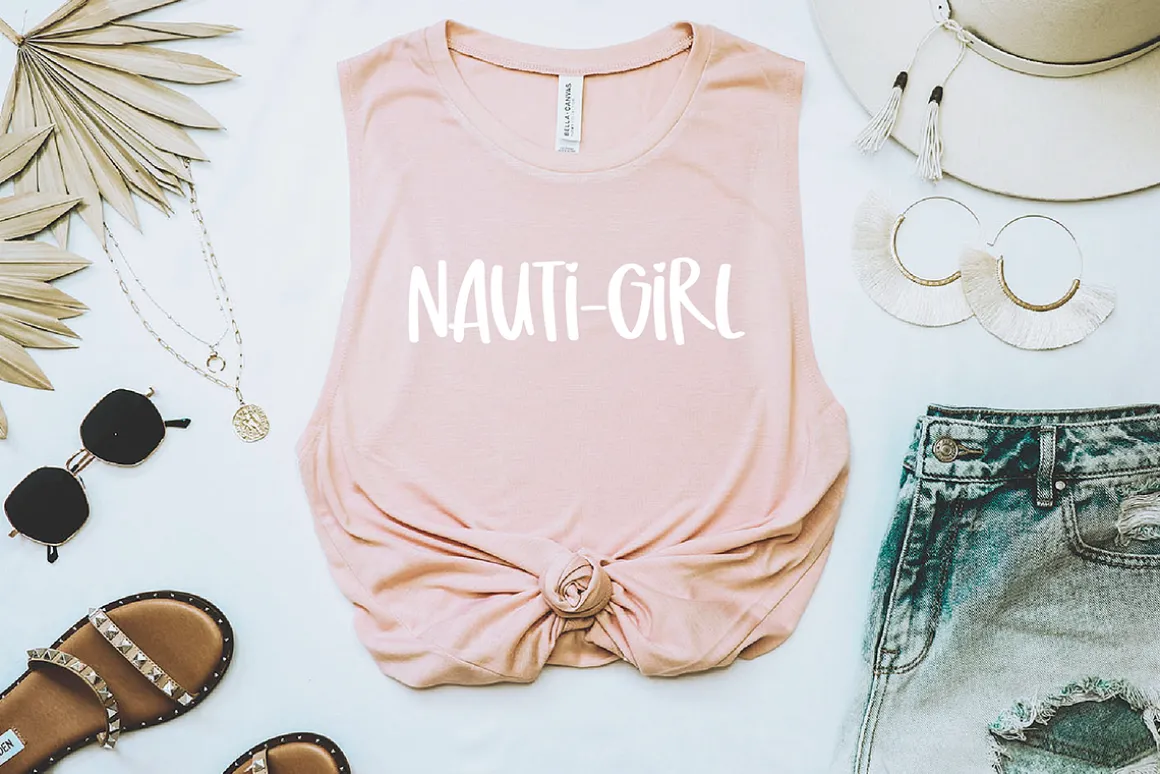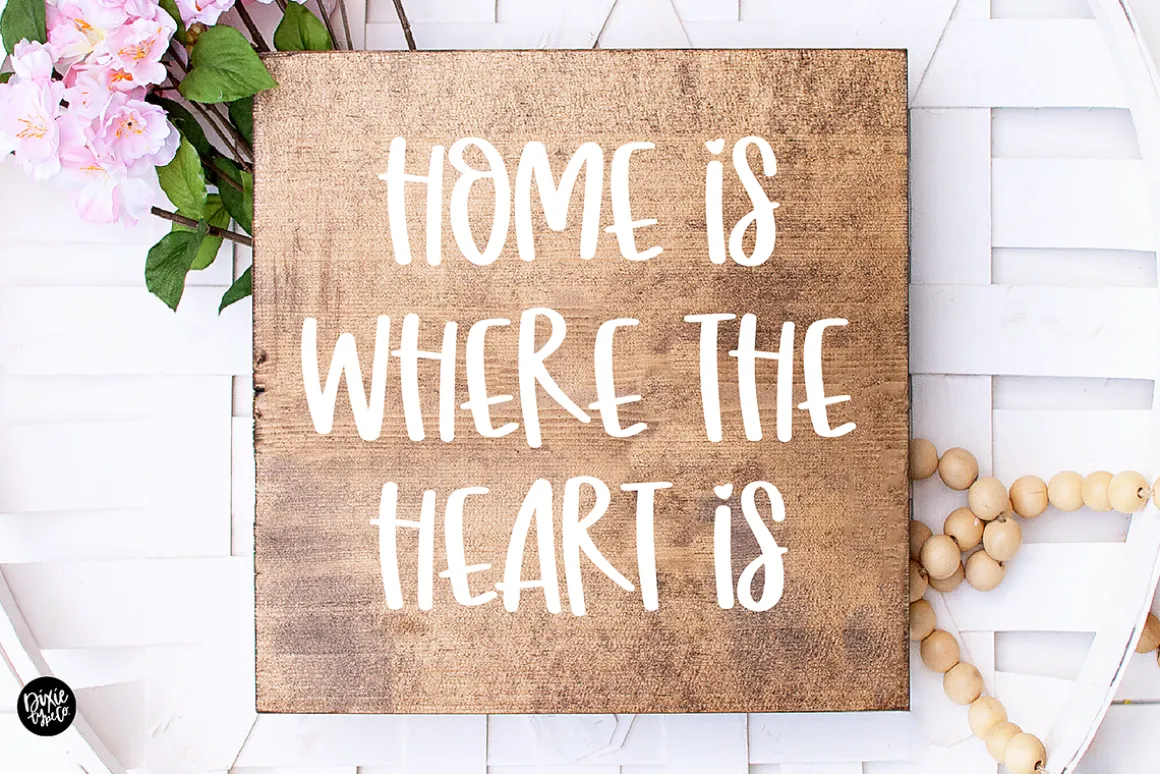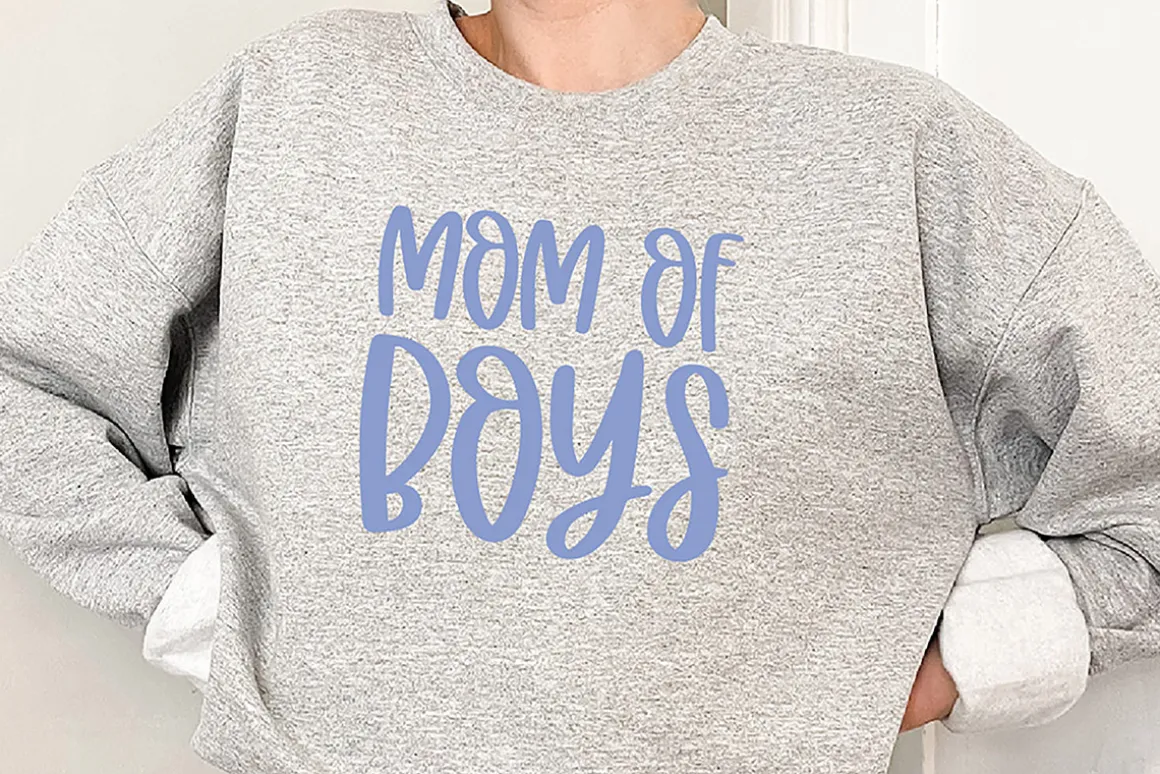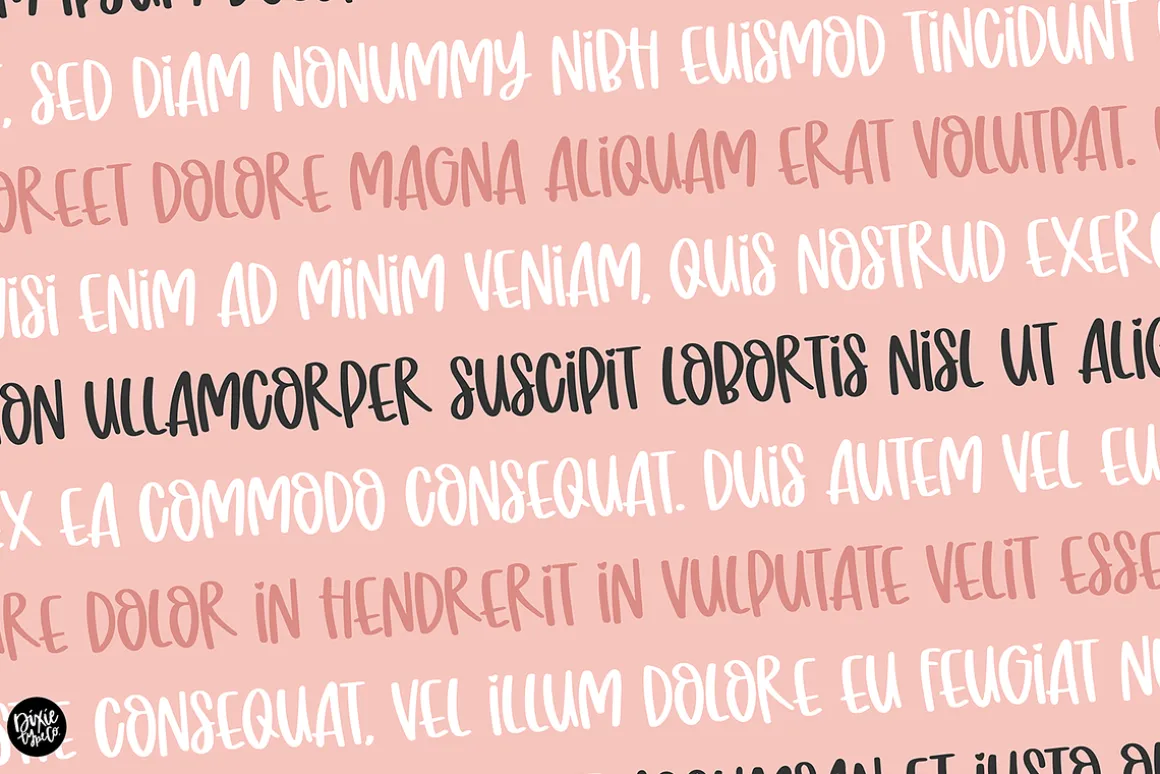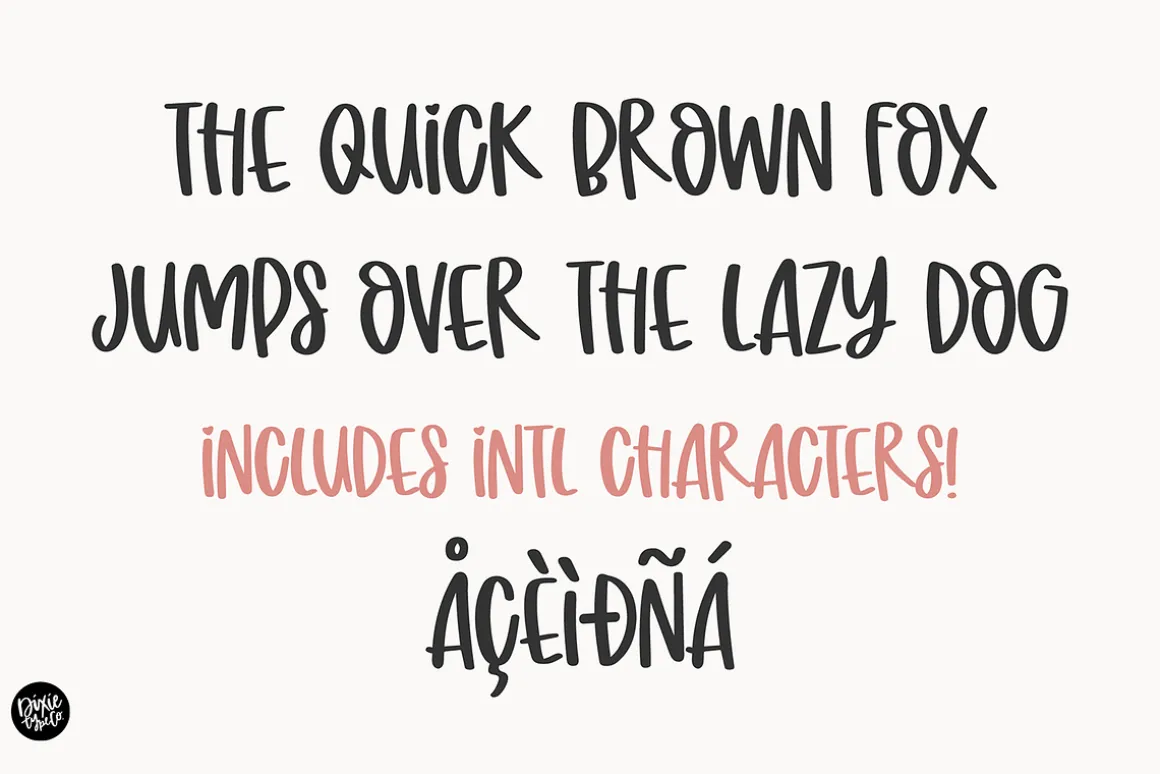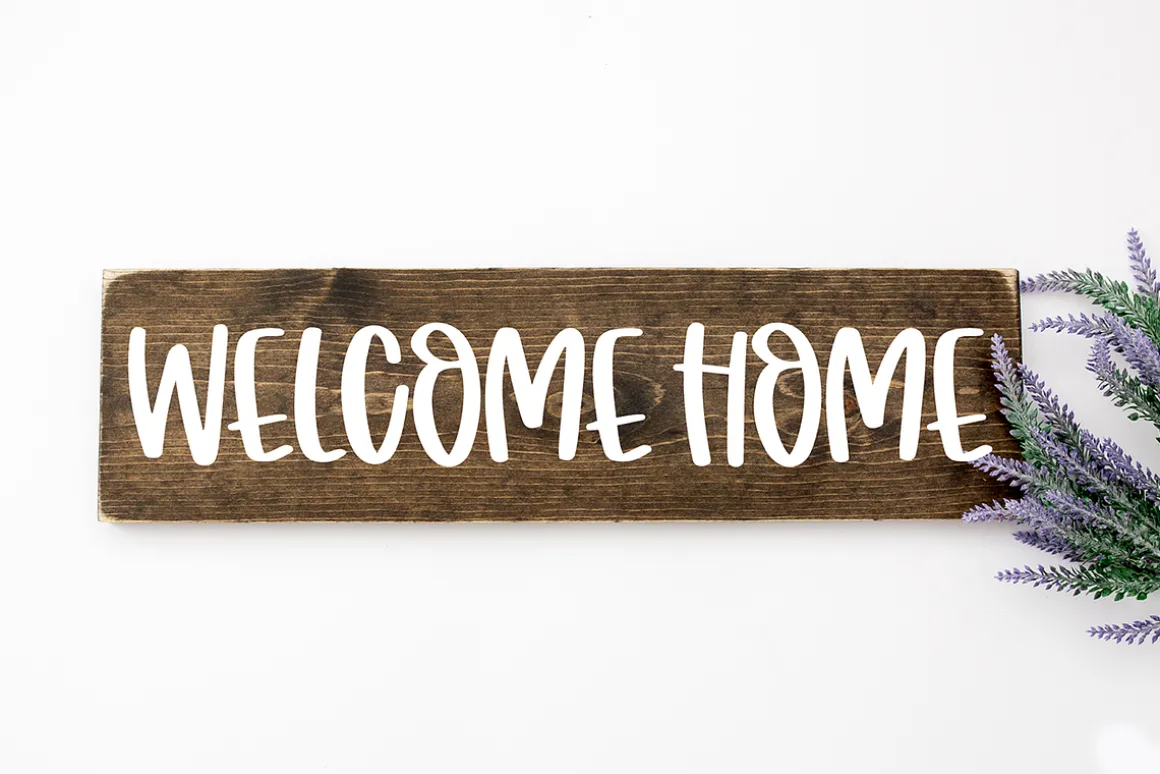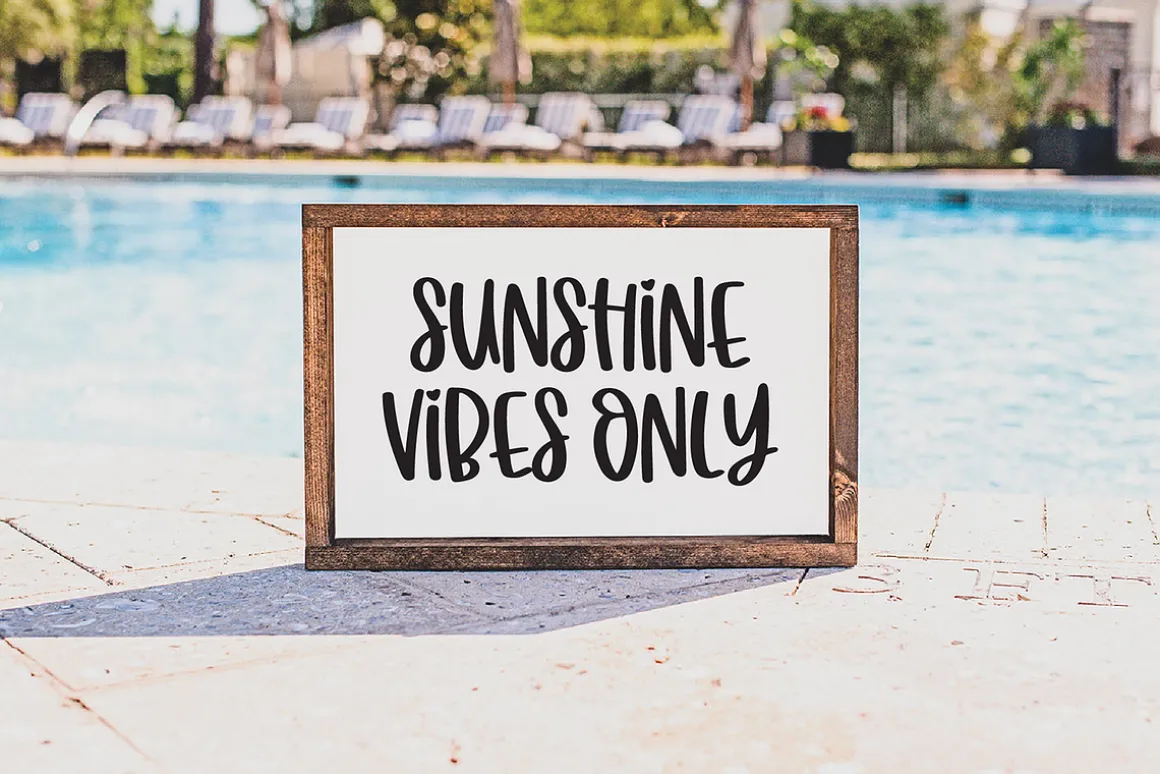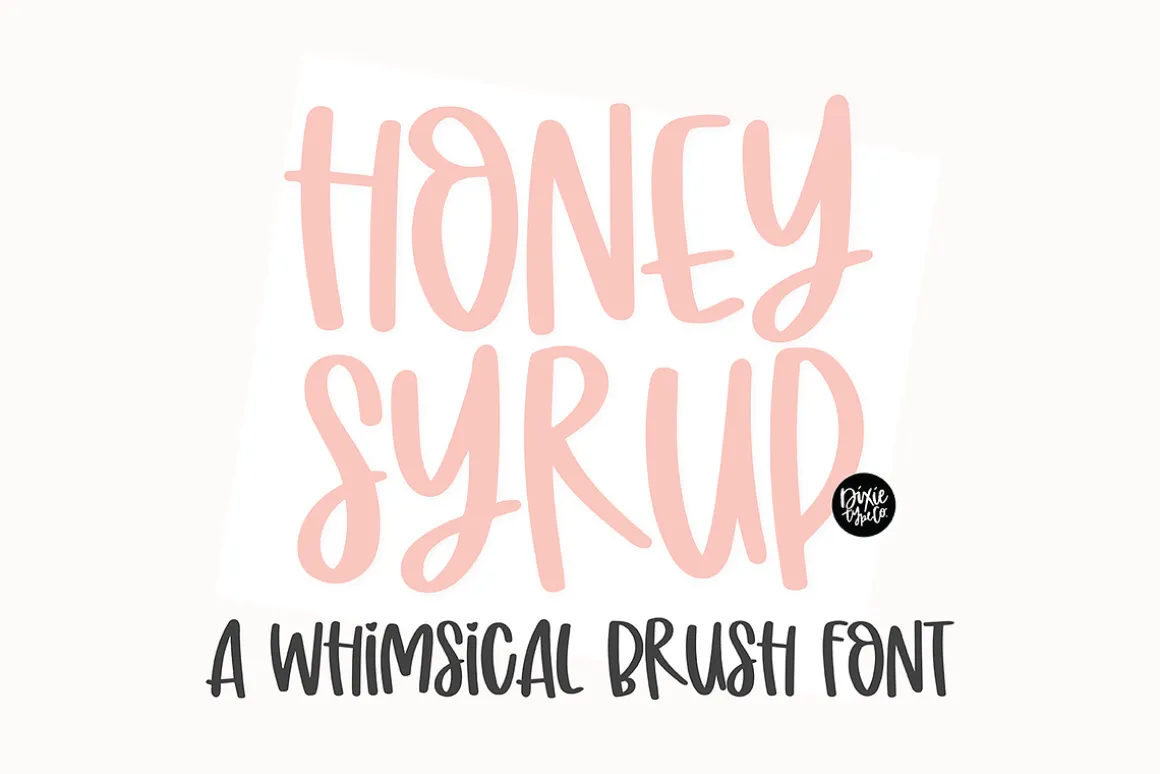
“Honey Syrup” casual brush font.
This font is a whimsical brush font that is perfect for social media or crafty projects. Use if for branding, crafts for decor, invitations, and more! This font includes all caps glyphs, numbers, basic punctuation marks and intl characters!